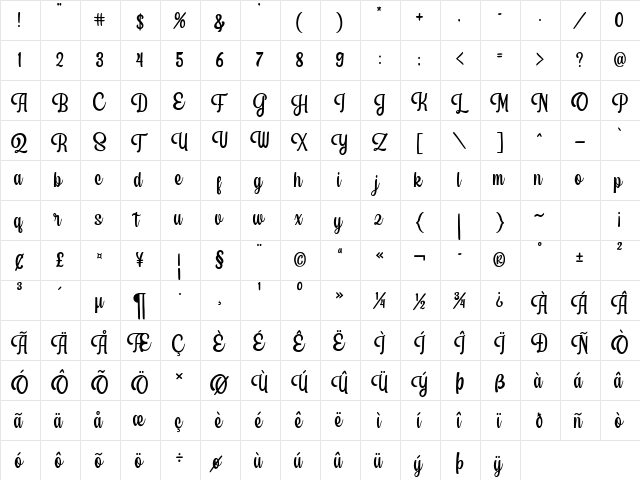
Sweet Lullaby Regular
| Designer | Ardian Nuvianto |
Design Context for Sweet Lullaby Typeface
Sweet Lullaby is a composed and adaptable typeface that performs quietly and consistently across a wide range of design contexts.